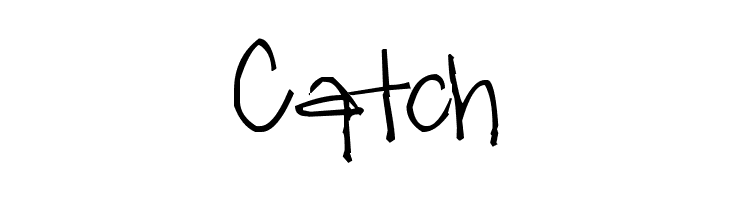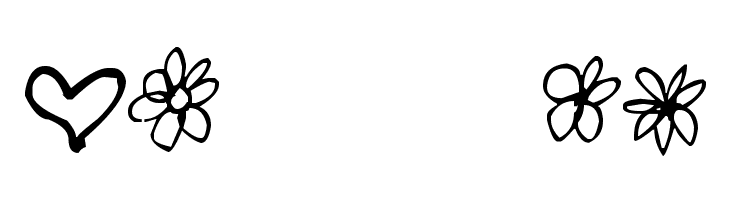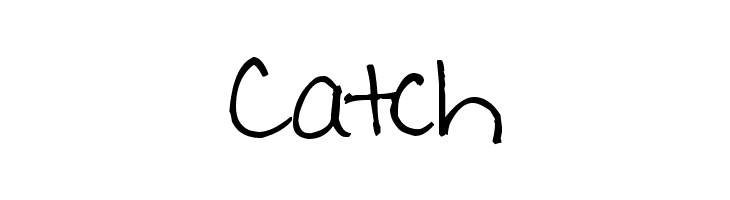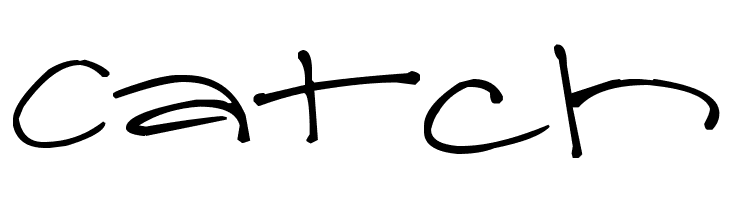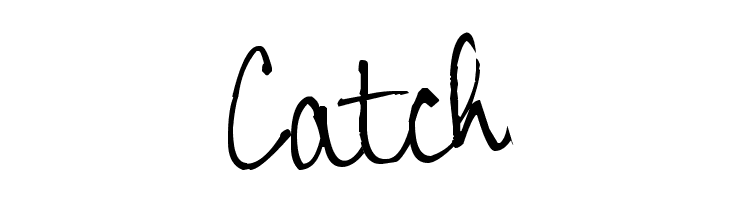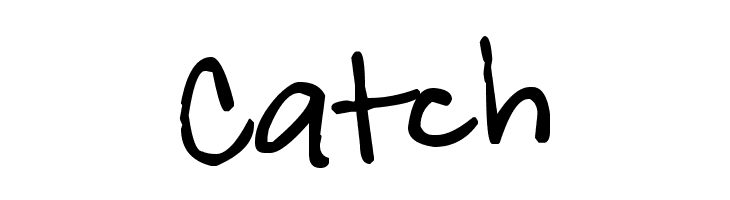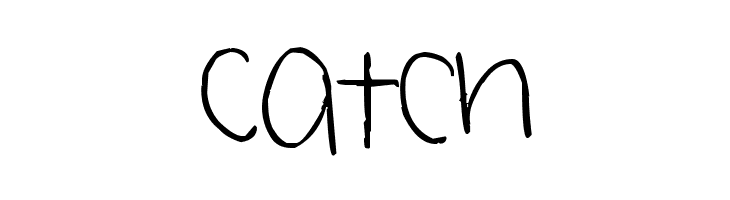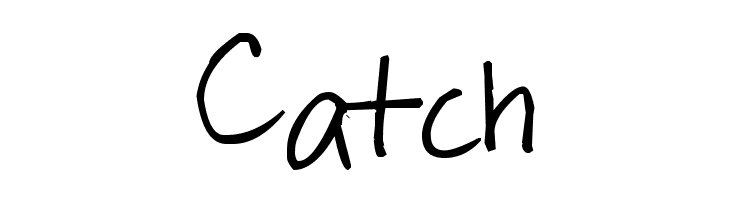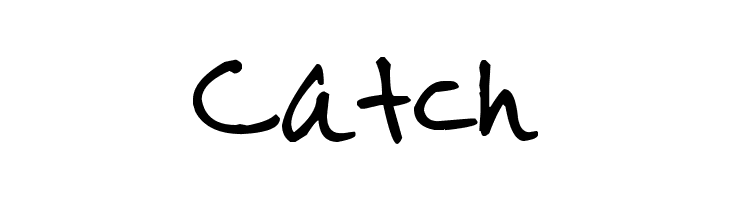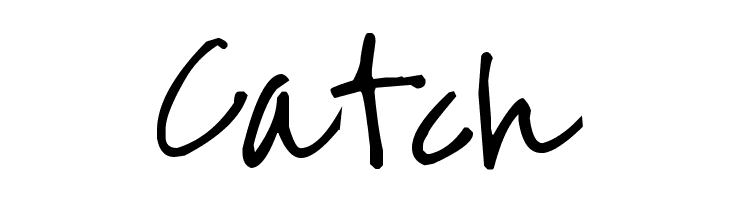
• Pea Jamie Lea
A playful, handwritten font with bold, expressive strokes and a casual style.
• Pea Jamie*B*
• Pea Jamie*B* Wake Up Fishy!
A playful, casual handwritten font with irregular strokes and a natural flow.
• Pea Jane
• Pea Jane In A Hurry
A casual, handwritten font with a playful and energetic style.
• Pea Janelle
A playful, handwritten font with a casual and informal style.
• Pea Jean
A casual, playful handwritten font with a dynamic and informal style.
• Pea Jean Script
A bold, handwritten script font with a casual and playful style.
• Pea Jeannie Script
A playful, handwritten font with a casual, cursive-like style.
• Pea Jenna
A playful, casual handwritten font with lively, uneven strokes.
• Pea Jennifer
A playful, casual handwritten font with a personal touch.
• Pea Jennifer Bee
A playful, handwritten font with bold, expressive strokes and a casual style.
• Pea Jenny
A playful, casual handwritten font with a friendly and dynamic appearance.
• Pea Jenny Script
A playful, casual handwritten font with fluid strokes and a lively appearance.
• Pea Jessi
A bold, playful handwritten font with expressive strokes and a casual feel.
• Pea Jessica
A casual, handwritten font with a playful and informal style.
• Pea Johanna
A playful, casual handwritten font with irregular strokes.
• Pea Johanna Script
A playful, handwritten script with fluid, connected strokes.
• Pea Jordan
A playful, handwritten font with a casual and dynamic style.
• Pea Julie
A playful and informal handwritten font with a casual, dynamic style.
• Pea Kareen
A playful, casual handwritten font with a natural, informal style.
• Pea Karen's Doodles